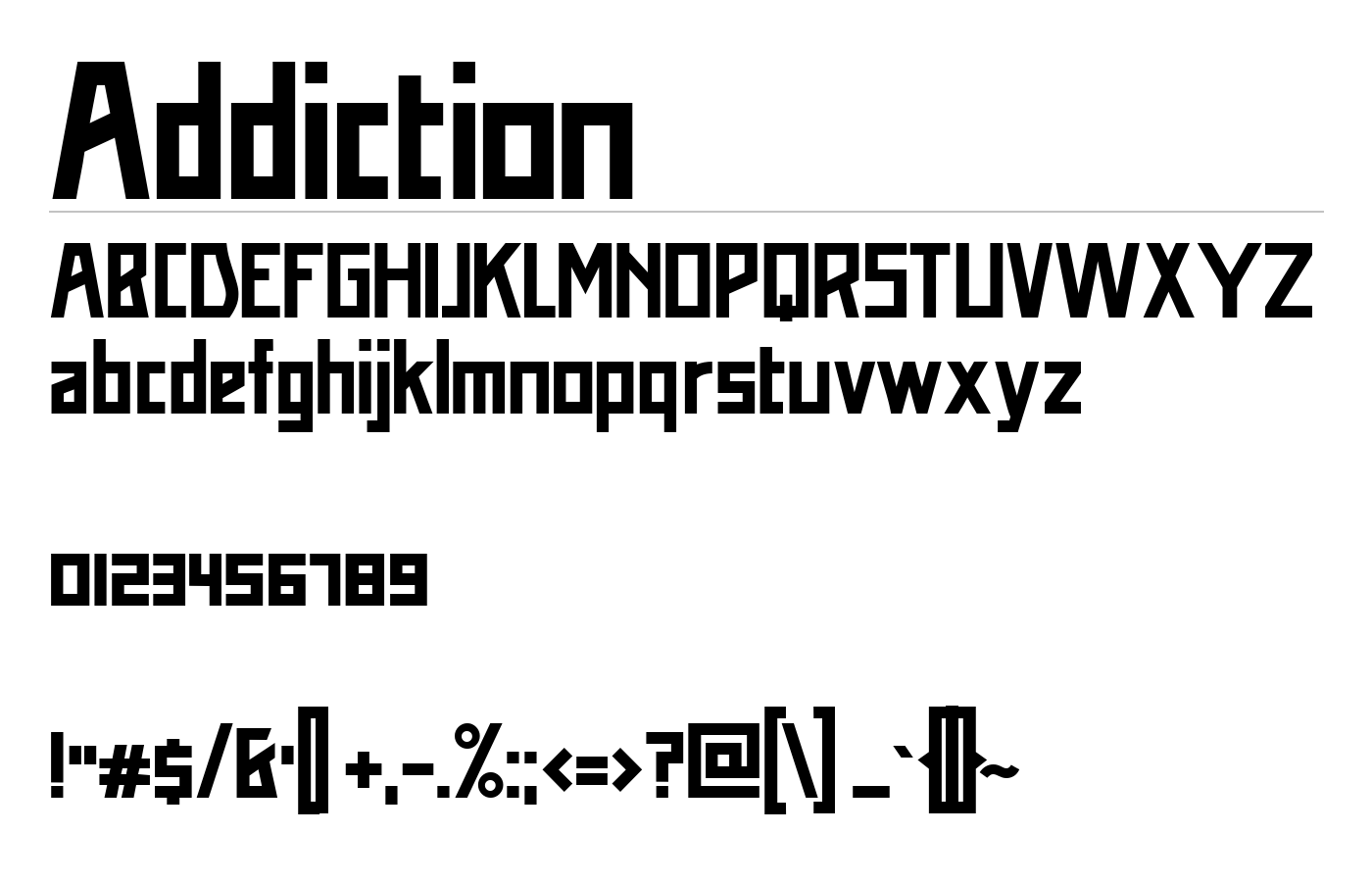
Addiction Font is a bold, condensed sans serif typeface with a strong geometric structure and sharply angled letterforms that give it a modern, edgy feel. Its high x-height and blocky shapes make it highly legible and impactful, ideal for striking headlines, branding, and display use where a contemporary and dynamic look is desired. This font works best in designs that aim to communicate confidence and a cutting-edge style.
Addiction Font
About Addiction Font
| Font family | Addiction Font |